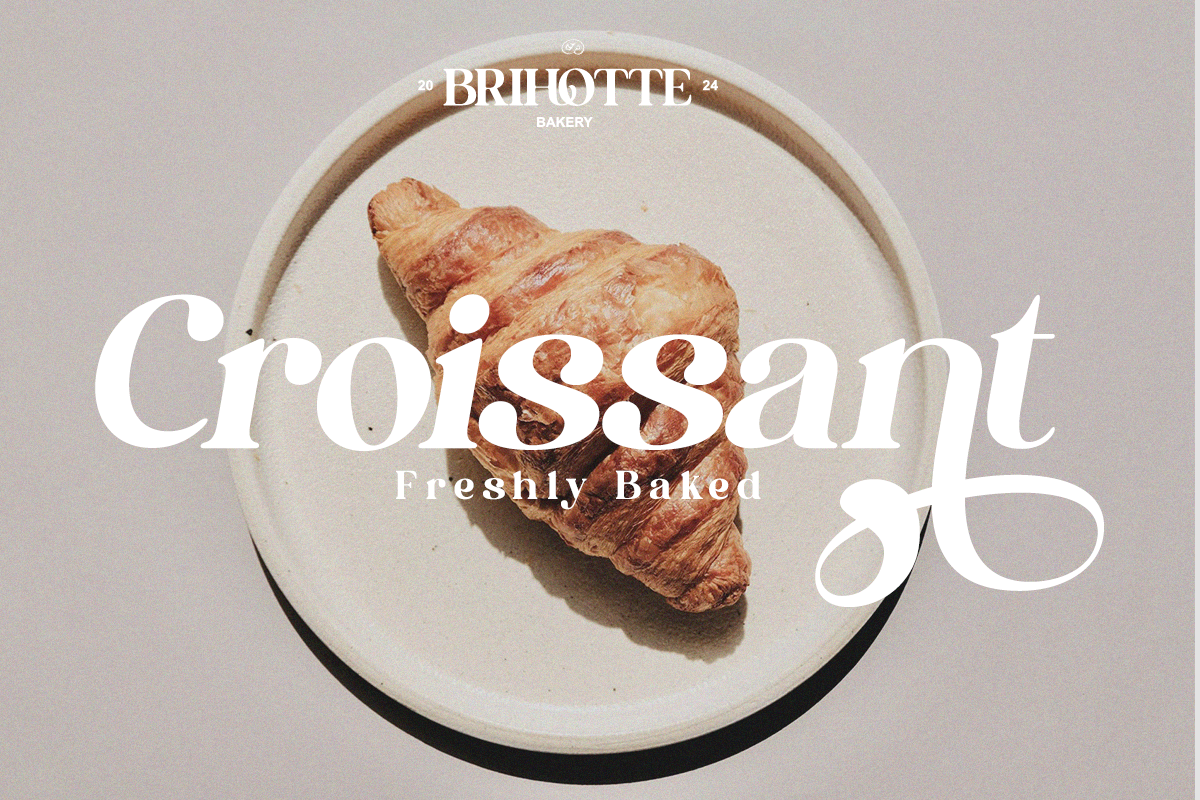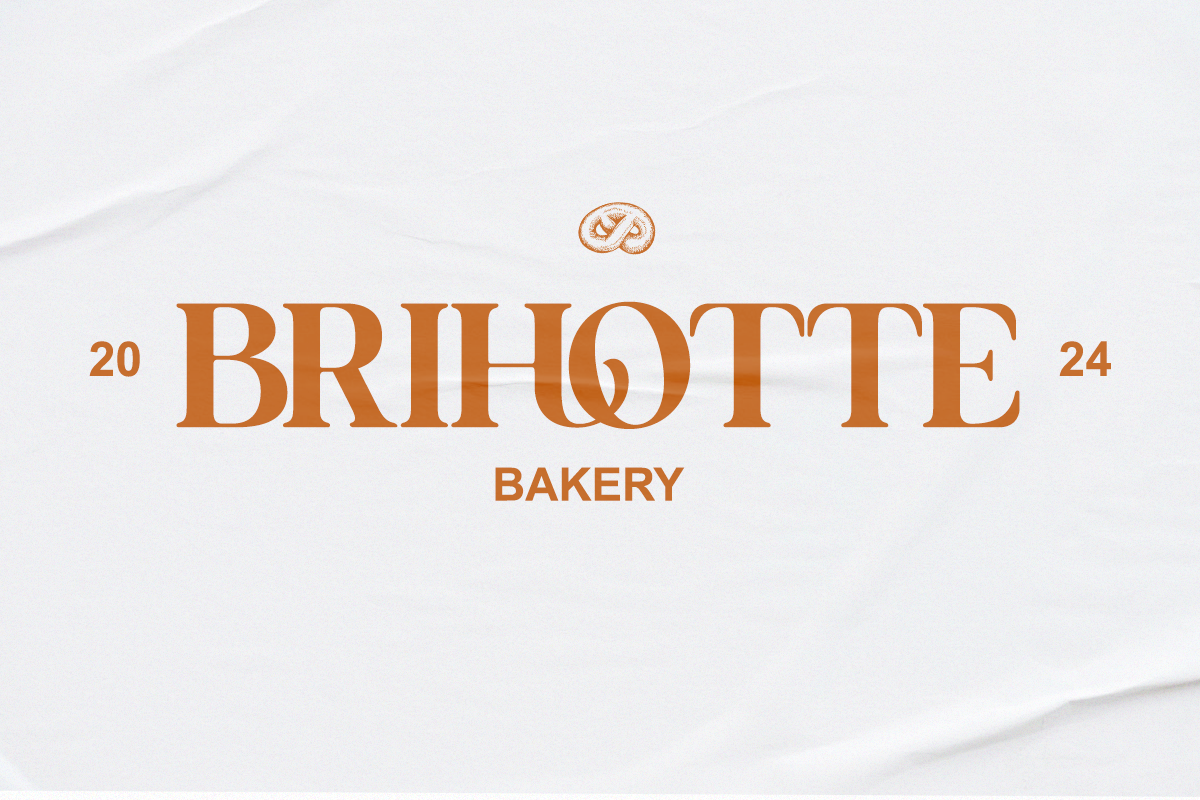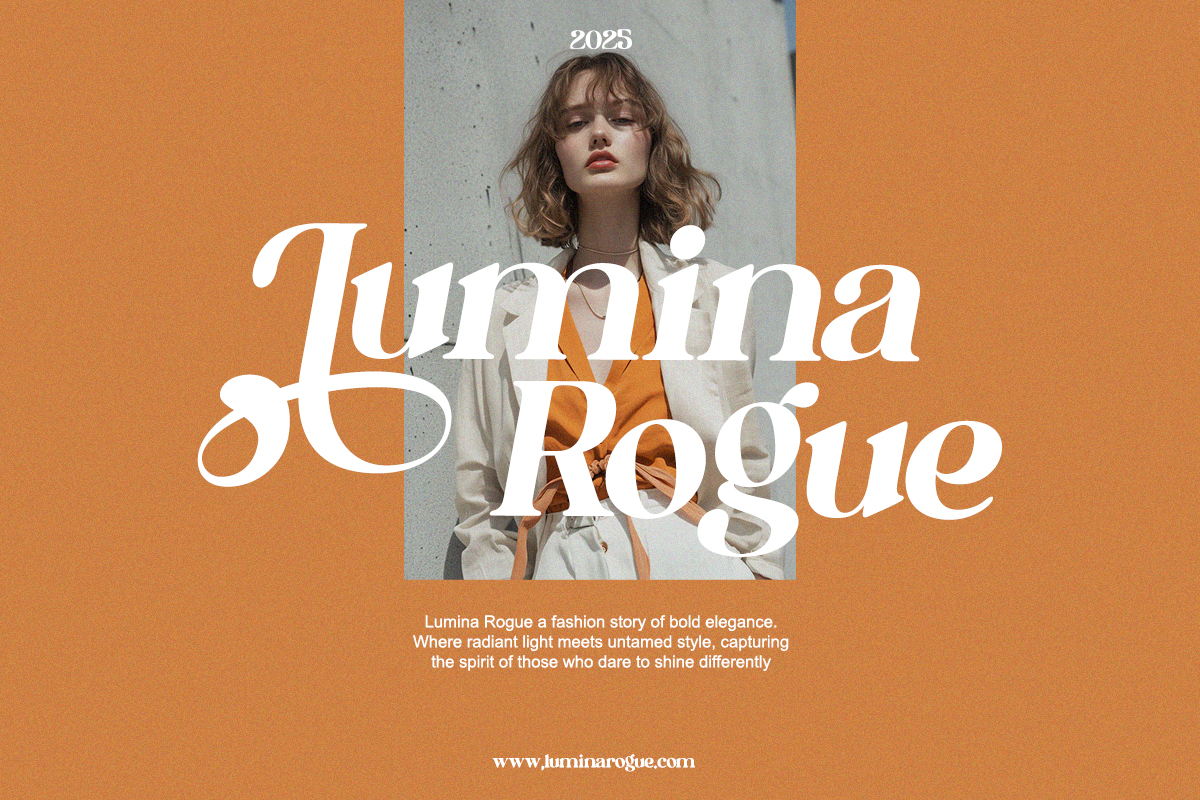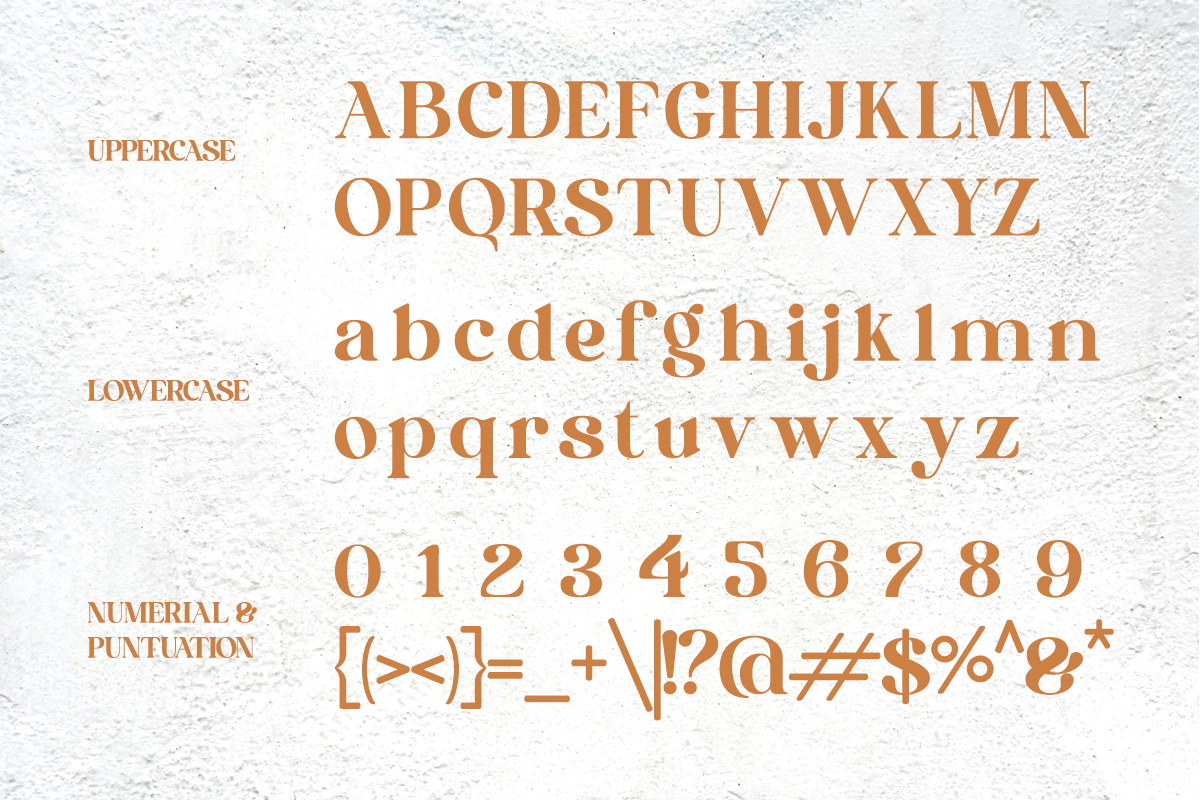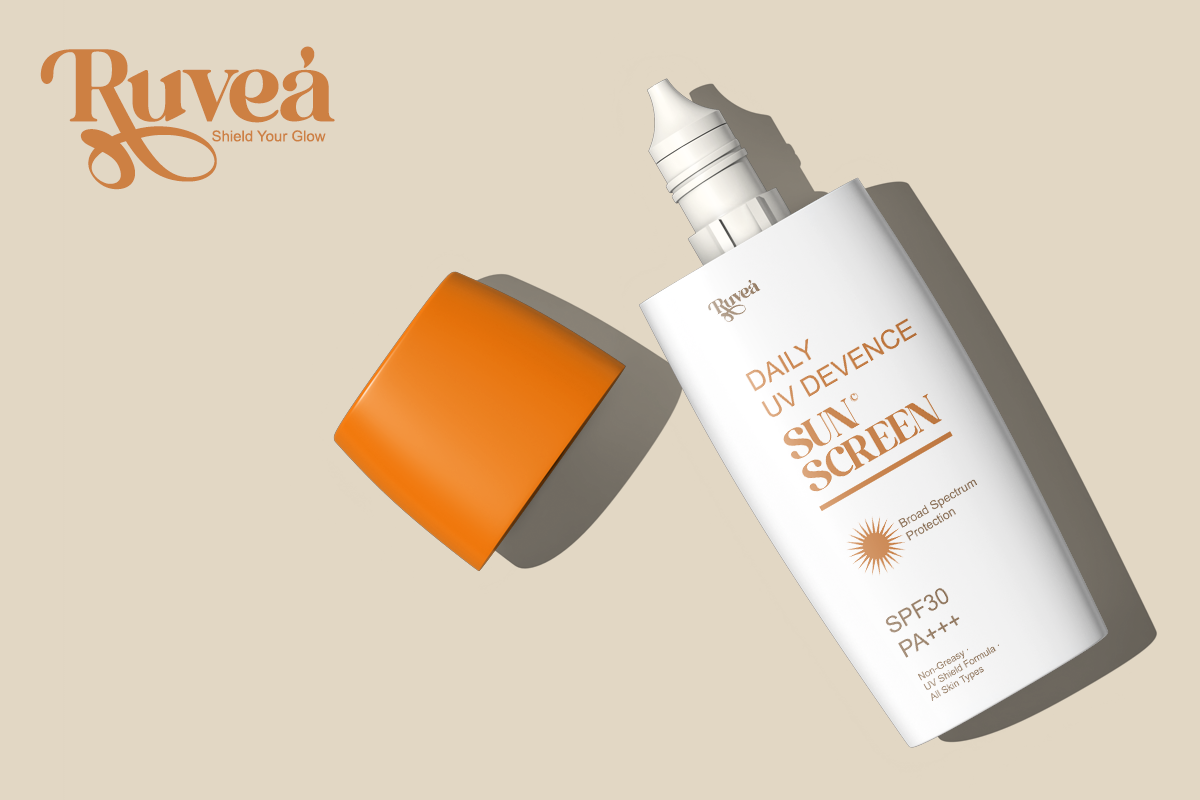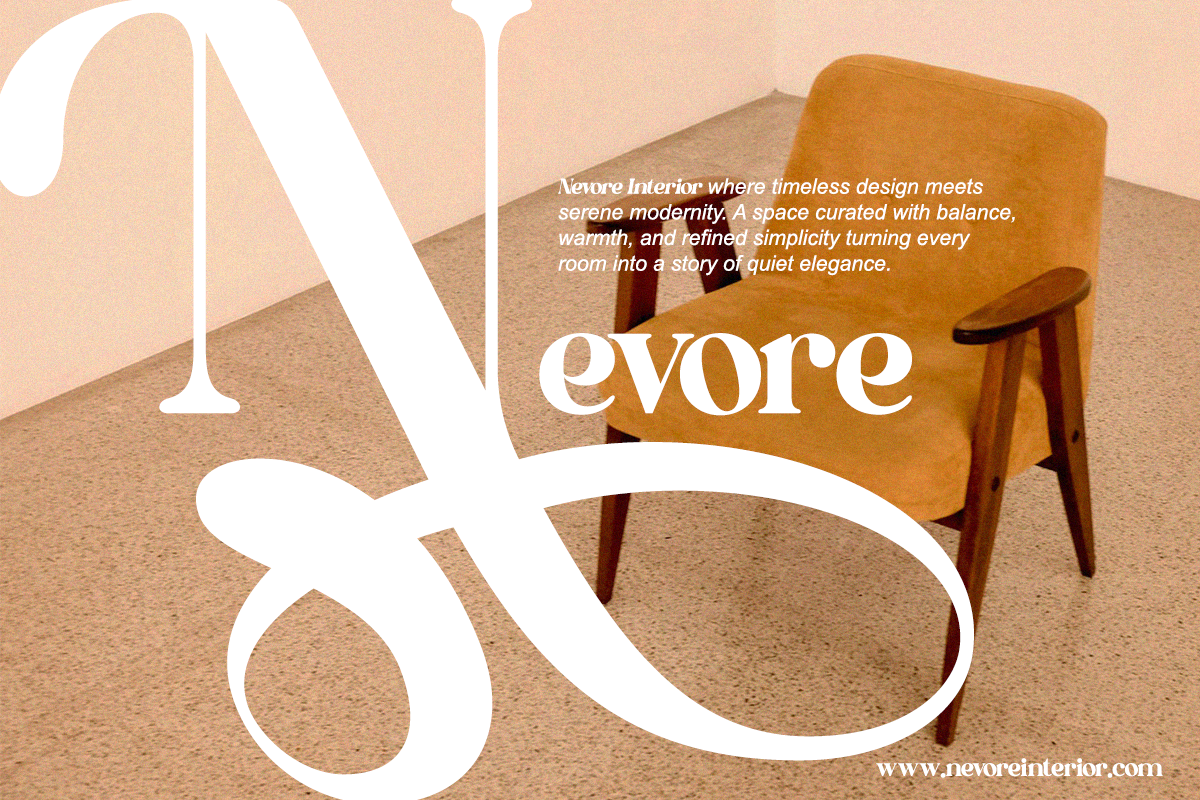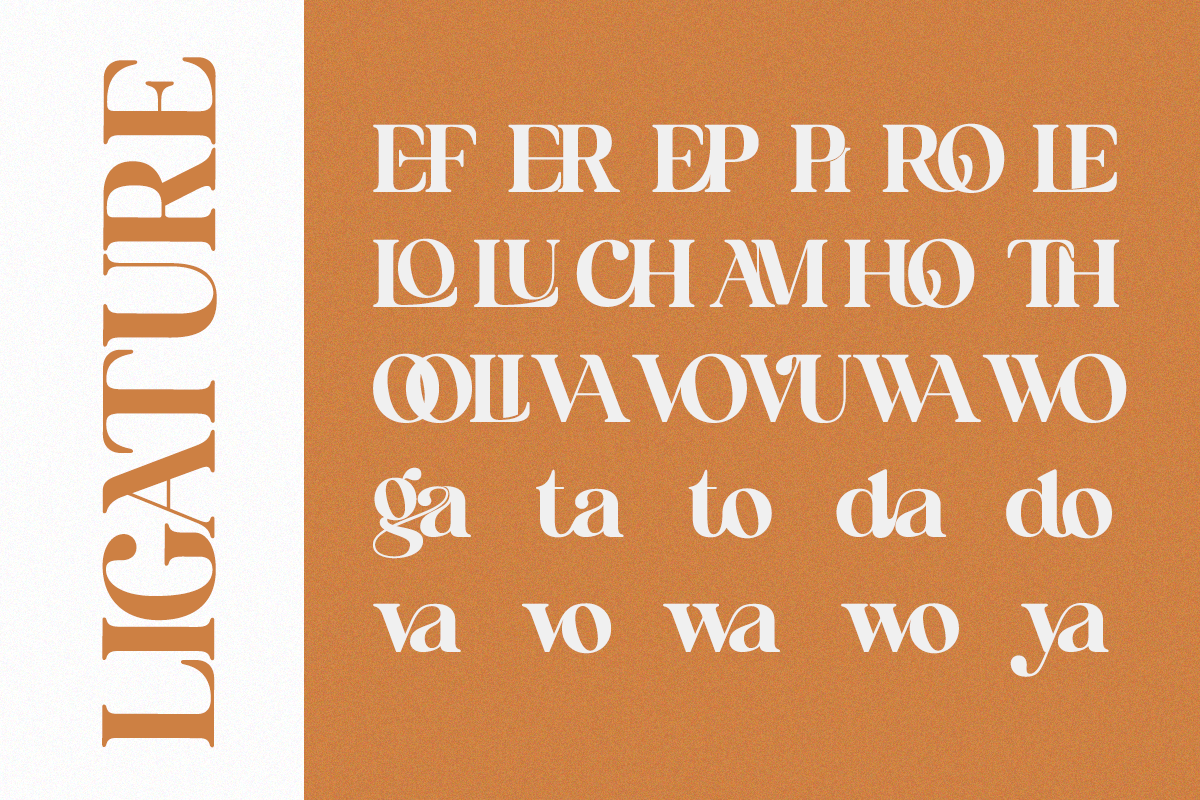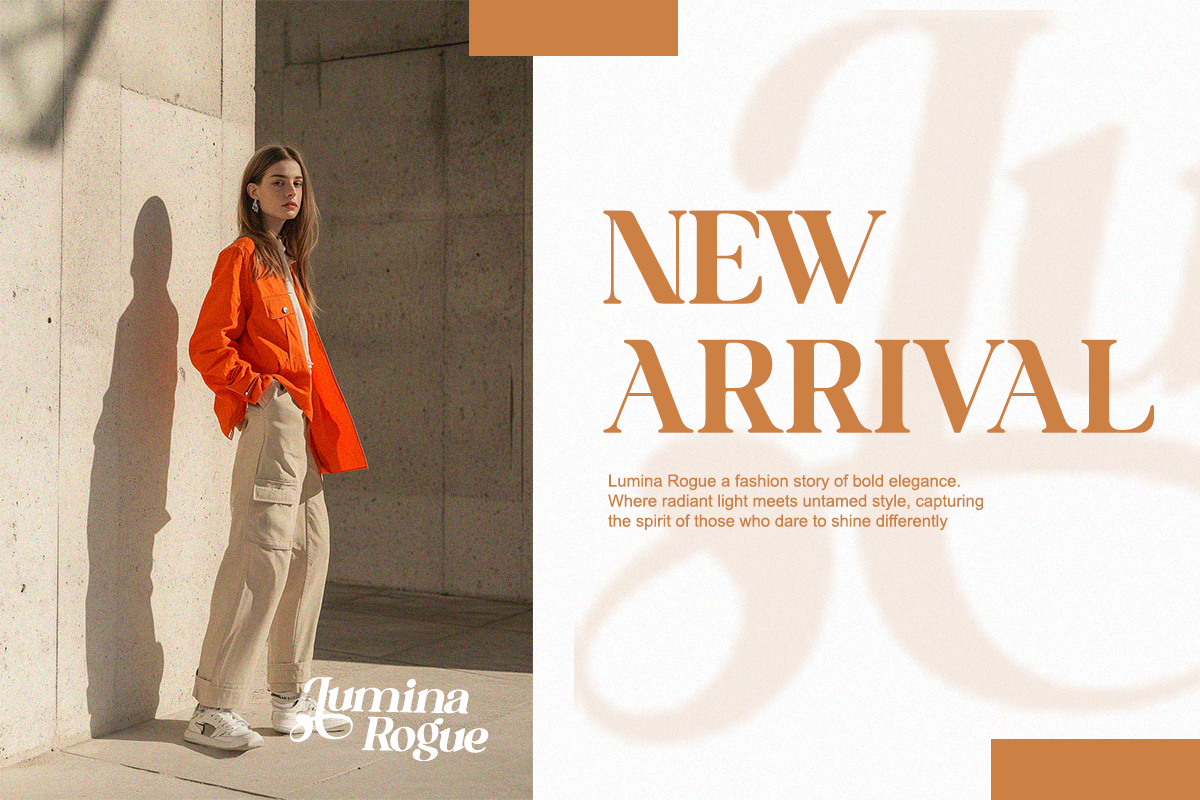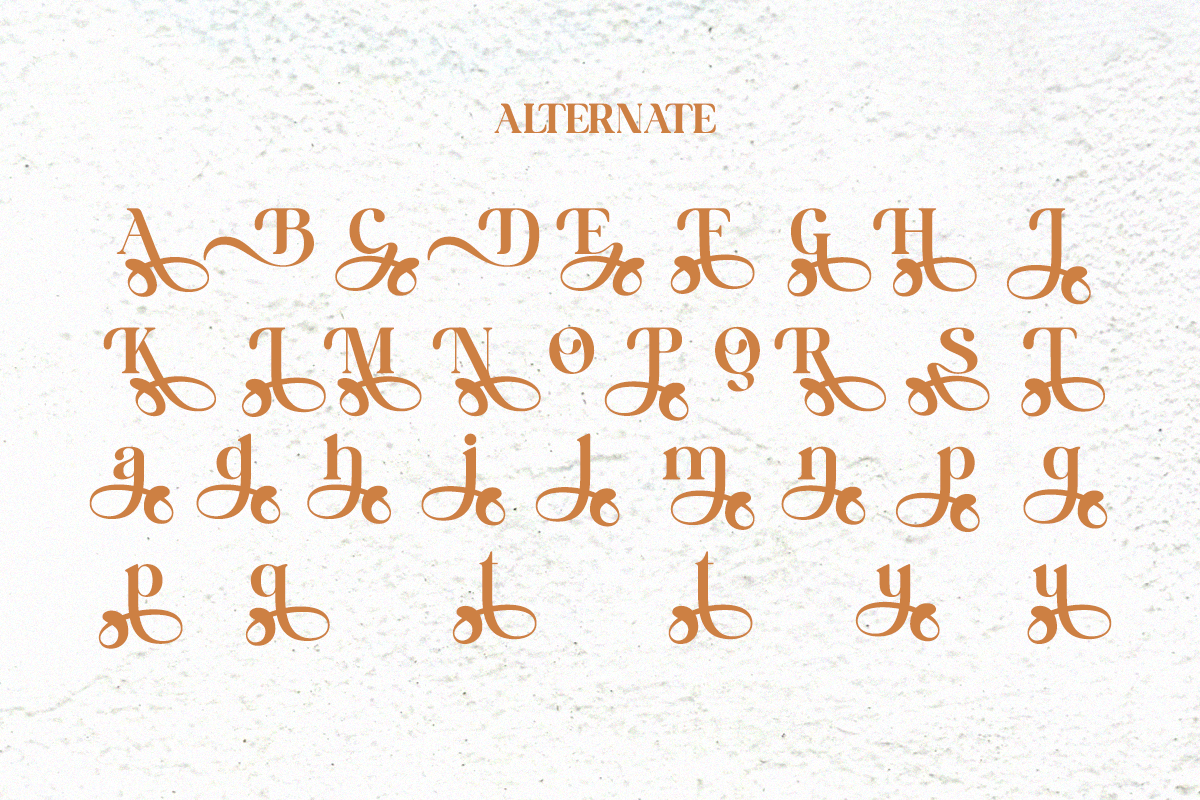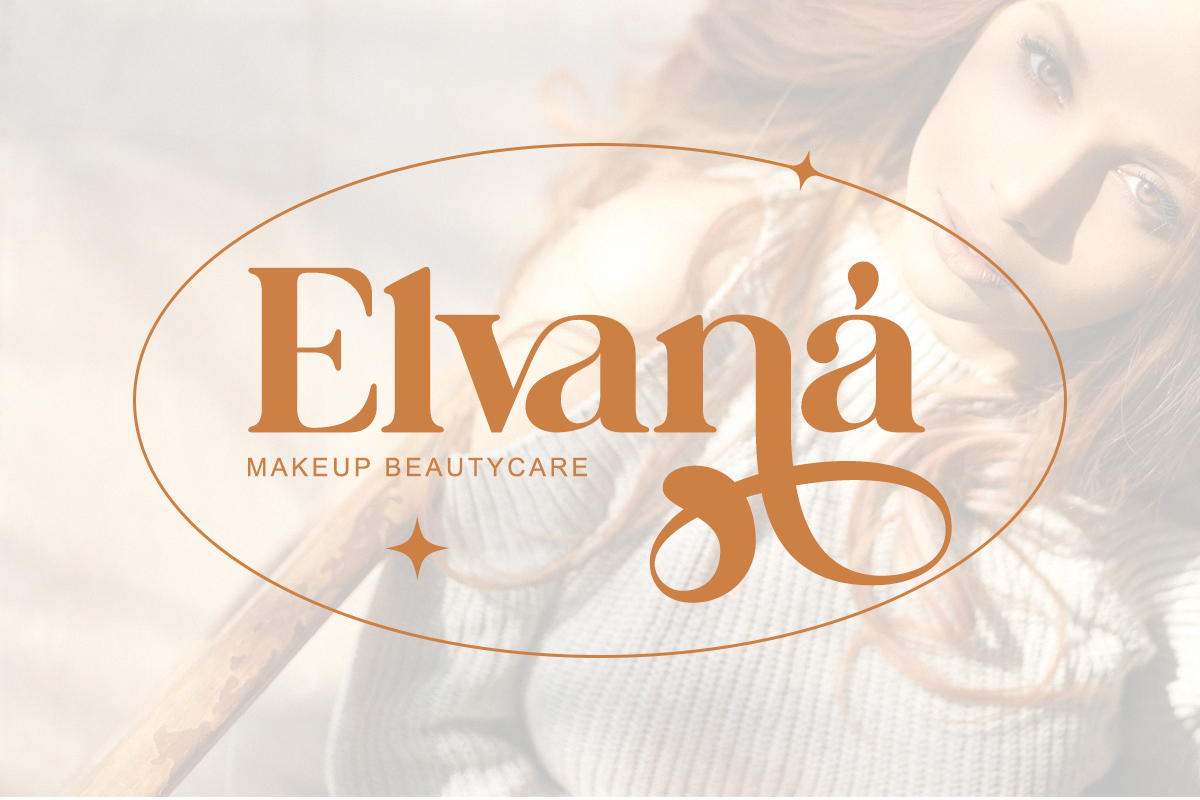
Mobigail - Modern Retro Stylish
Meet Mobigail, a retro-modern serif designed to bring warmth, personality, and editorial elegance into your branding. Its soft curves, decorative ligatures, and refined contrast create a stylish yet professional look that feels premium and artistic. Perfect for designers who want a serif with nostalgic charm but modern structure — ideal for boutique logos, wedding branding, packaging, or magazine headlines. Font Features - Regular & Italic - Complete uppercase & lowercase - Stylish alternates + ligatures - Warm retro serif construction - PUA encoded - Multilingual support Perfect For Lifestyle branding, boutique visual identity, fashion logo design, packaging, wedding stationery, editorial layouts, and social media templates.